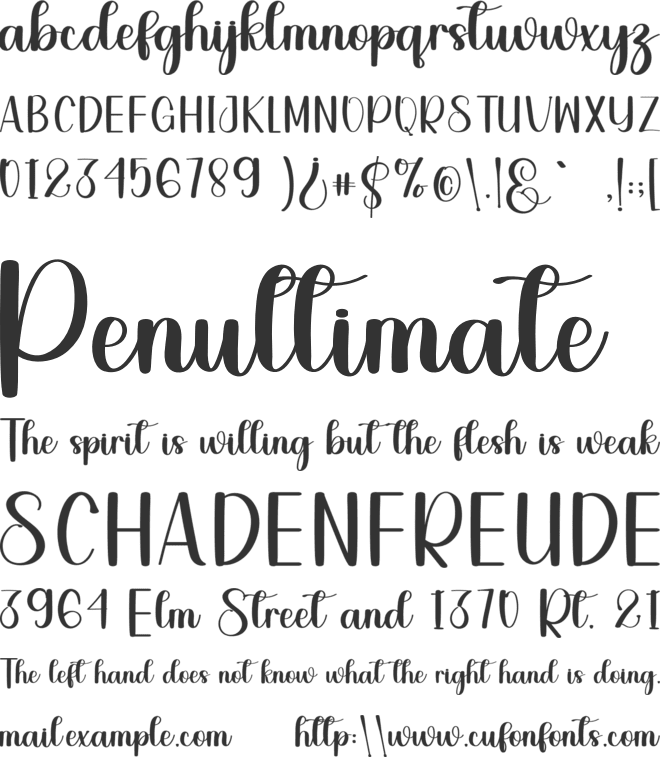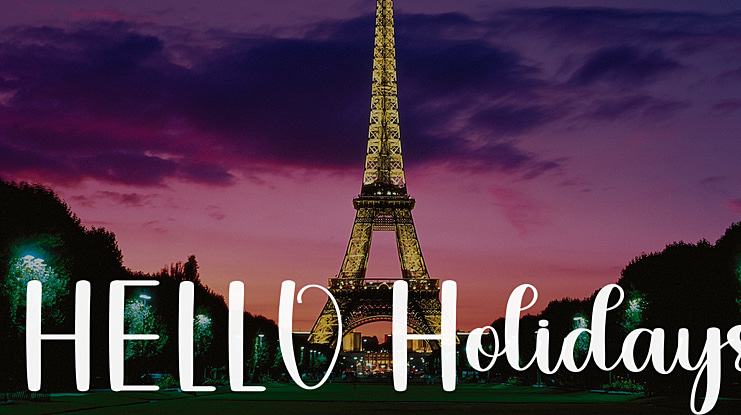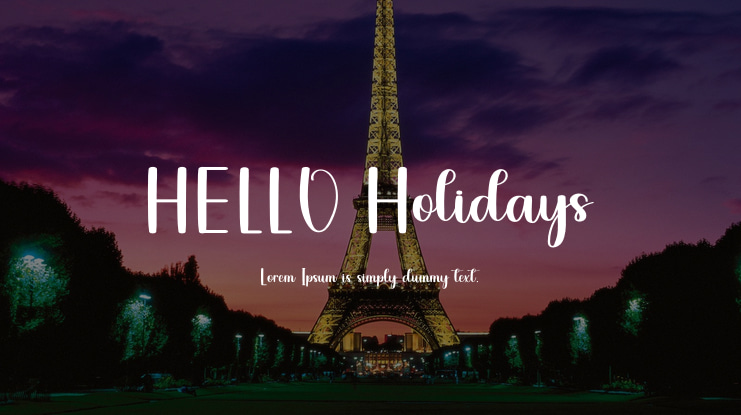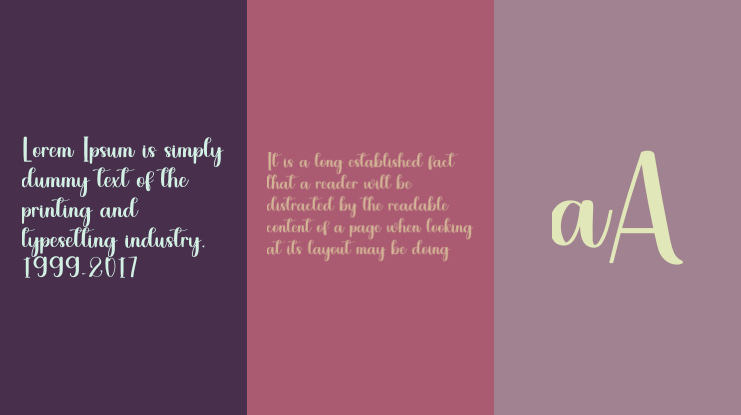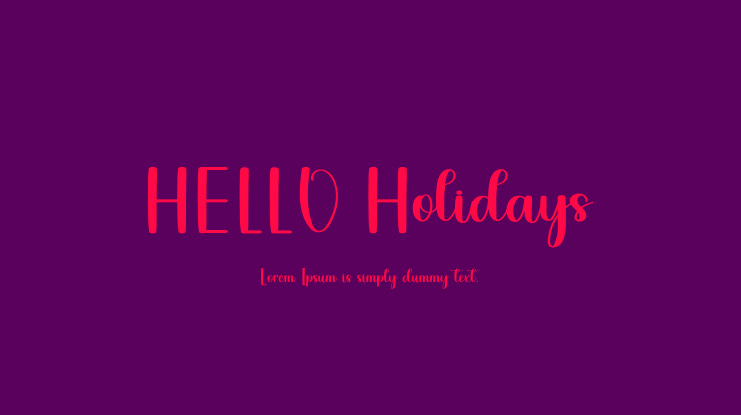
HELLO Holidays Font
This is a relaxed and beautiful paint brush handwritten font. It can be used for various purposes such as logos, wedding invitations, headings, t-shirts, letterhead, signage, labels, news, posters, badges and so much more.